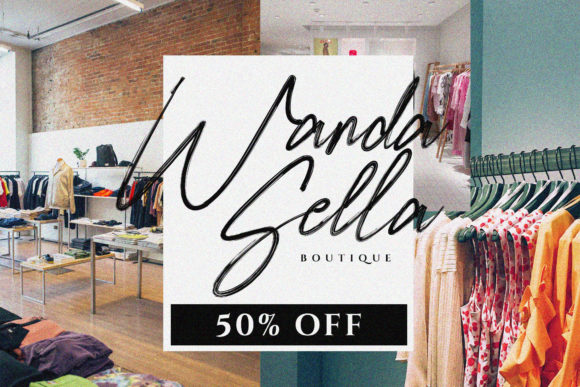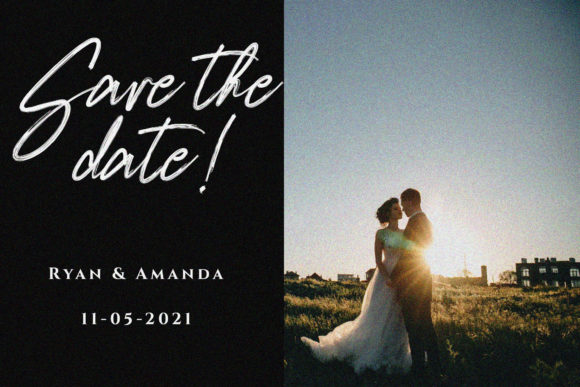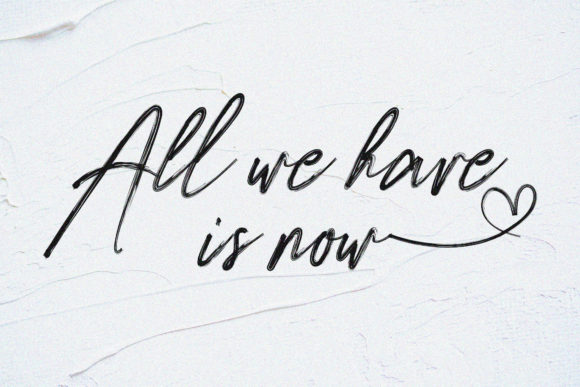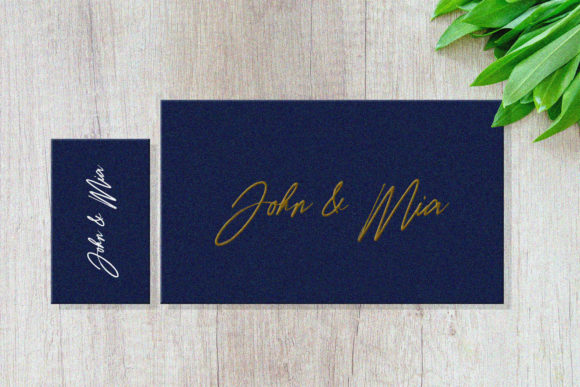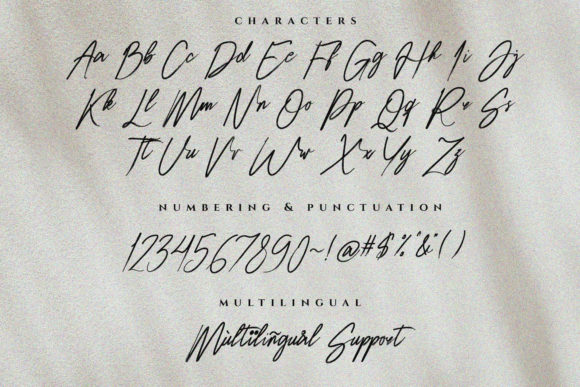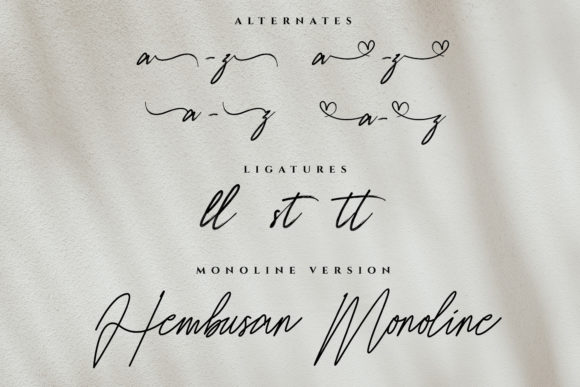
The Elusive Perfect Font: My Encounter with Hembusan
I’ll never forget the countless hours I spent scrolling through font libraries, searching for that one perfect font for a client’s wedding invitation project. The brief was simple: elegant, modern, and with a dash of whimsy. As I sifted through page after page of serif and sans-serif fonts, my eyes began to blur. That’s when I stumbled upon Hembusan – a relaxed, flowing, and brushed handwritten font that instantly caught my attention.
First Impressions: A Love Letter to Hembusan
Hembusan is a versatile script font that has a wide spectrum of applications, ranging from greeting cards to headlines. Its unique blend of elegance and playfulness makes it an excellent choice for designers, crafters, and creative hobbyists. Here’s what I love about Hembusan:
- ✨ Unique character: Hembusan’s handwritten feel is both modern and sophisticated, making it perfect for projects that require a personal touch.
- ✅ Excellent legibility: Despite its cursive nature, Hembusan remains highly legible, even at smaller font sizes.
- 💫 Extensive OpenType features: Hembusan comes with a range of OpenType features, including stylistic alternates, glyphs, and ligatures, allowing for endless creative possibilities.
The Not-So-Perfect: A Few Quirks
While Hembusan is an exceptional font, it’s not without its limitations. Here are a few things to keep in mind:
- 🤔 Limited use in body text: Due to its cursive nature, Hembusan may not be the best choice for lengthy body text. It’s better suited for headings, titles, or short paragraphs.
- ⚠️ Kerning issues: As with any font, kerning can be a issue, especially when using Hembusan at larger font sizes. Be sure to adjust the kerning manually to achieve optimal results.
The Story Behind Hembusan
While the true story behind Hembusan remains a mystery, it’s easy to imagine that it was created by a designer who wanted to capture the essence of modern elegance. Perhaps the designer, inspired by the flowing lines of handwritten scripts, set out to create a font that would be both versatile and beautiful.
| Font Name | Hembusan Font |
| Author | jadatype |
| What is Hembusan best used for? | Hembusan is best used for projects that require a modern, elegant feel, such as wedding invitations, greeting cards, and headlines. |
| Is Hembusan suitable for body text? | While Hembusan can be used for short paragraphs, it’s not ideal for lengthy body text due to its cursive nature. |
| Does Hembusan come with OpenType features? | Yes, Hembusan comes with a range of OpenType features, including stylistic alternates, glyphs, and ligatures. |